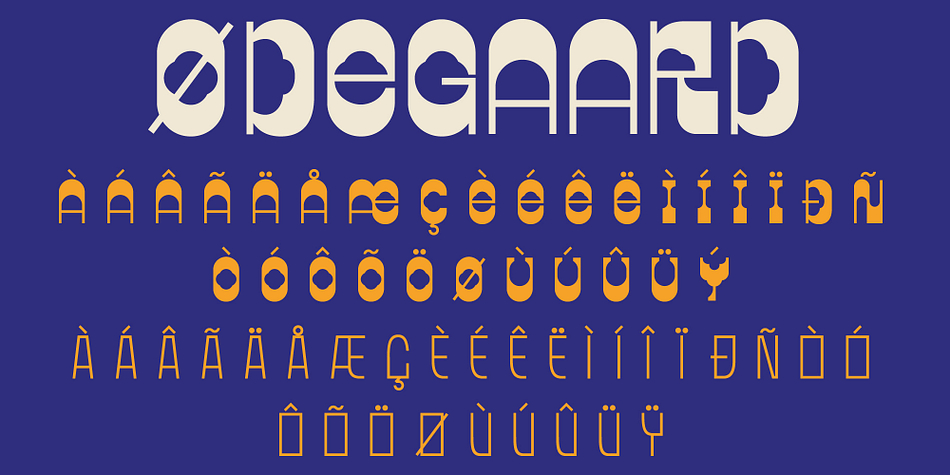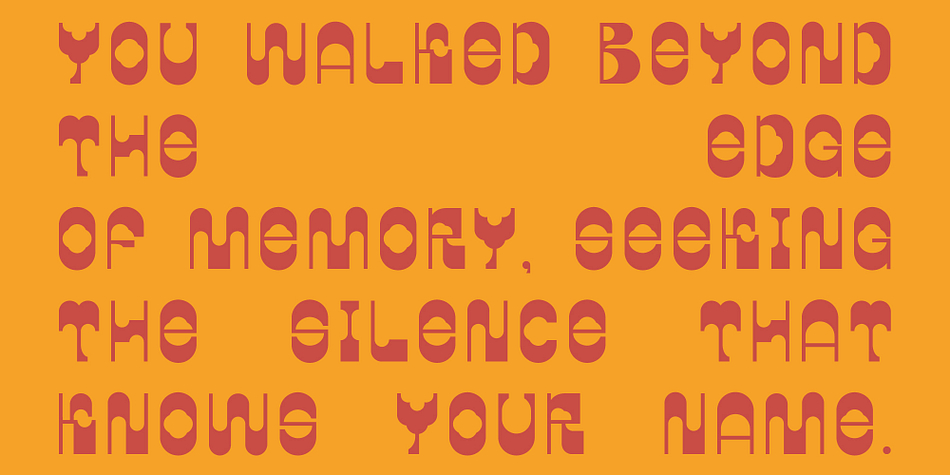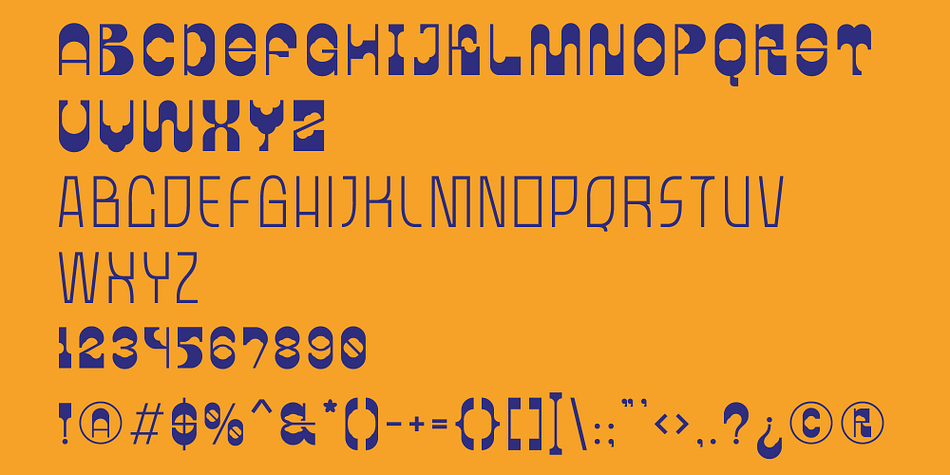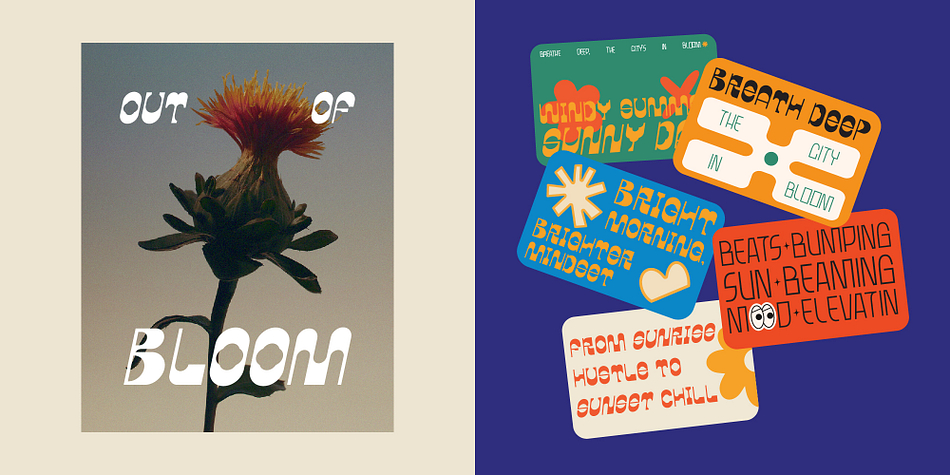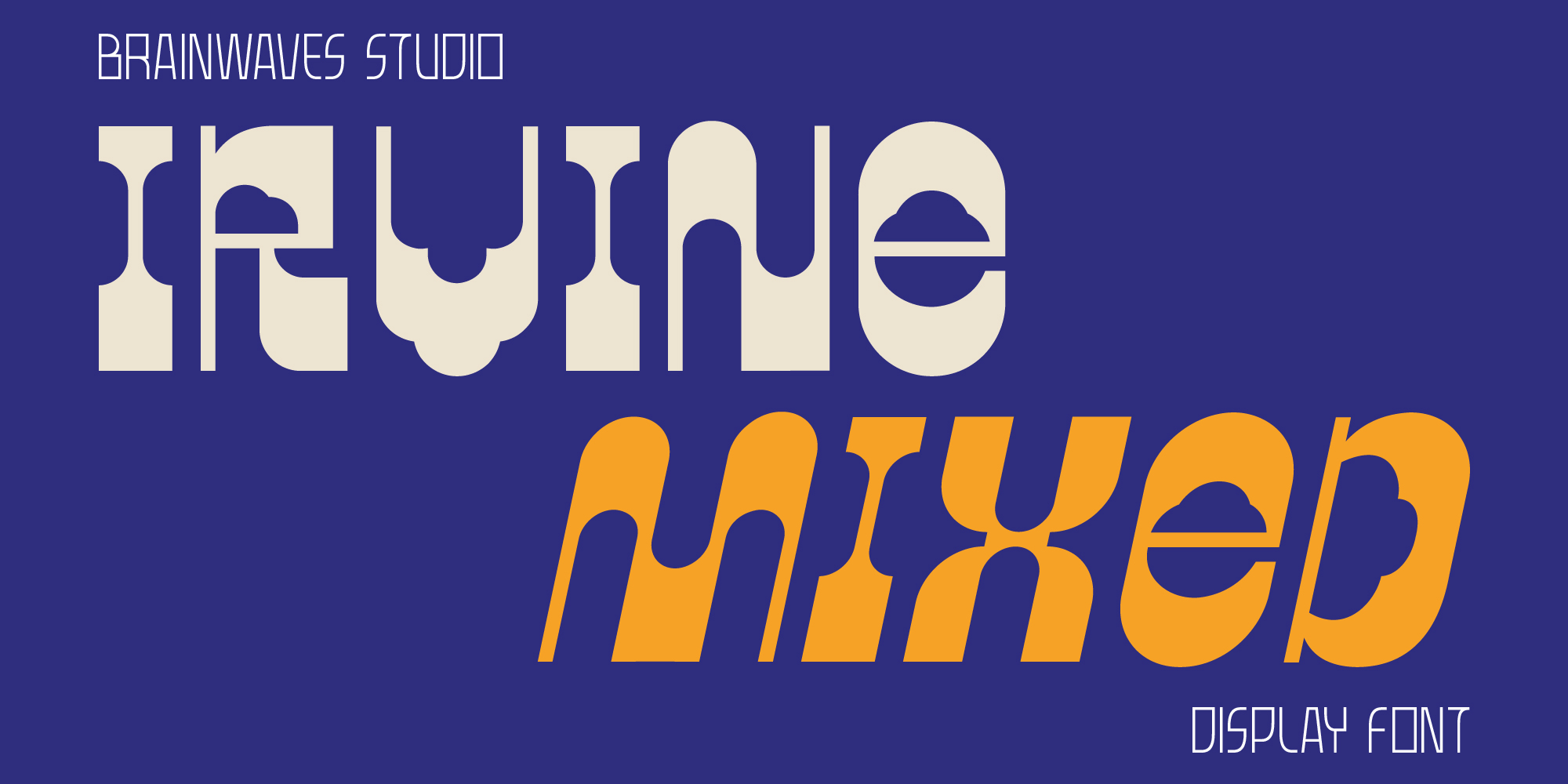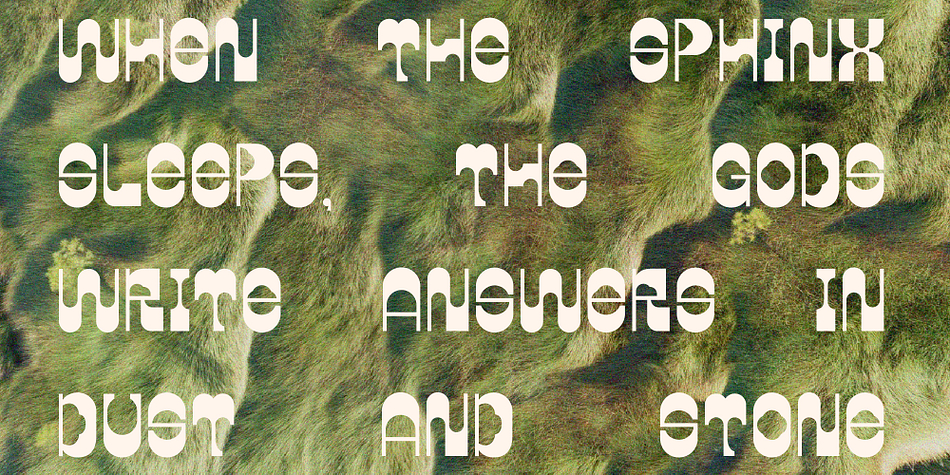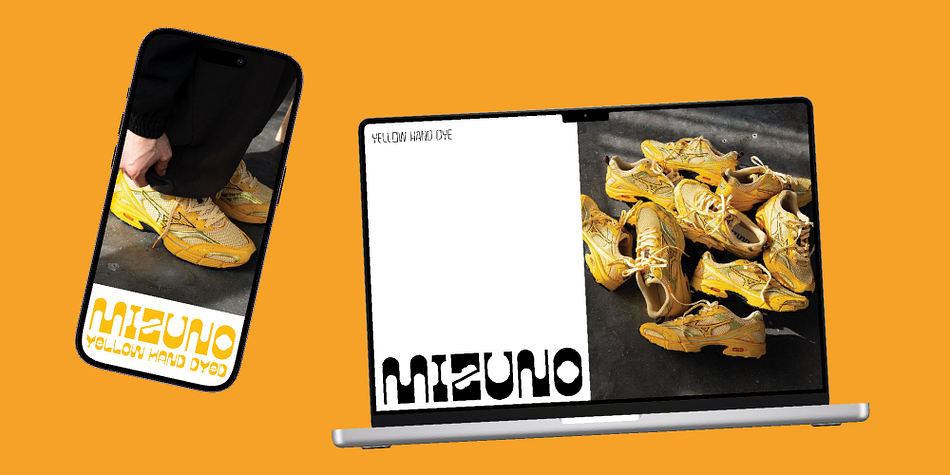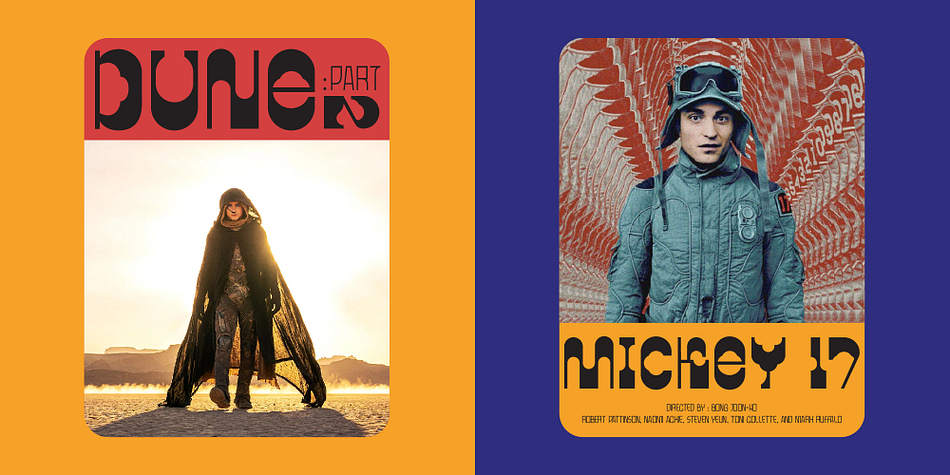
Irvine Mixed Font
Designed by Lucky Fitriadi, Irvine Mixed Font is a sans serif font family. This typeface has two styles and was published by Brainwaves Studio.
Irvine Mixed is a vibrant and expressive display font that merges the funky curves of retro lettering with the angular edge of sci-fi aesthetics. Each character is designed to feel like a surprise—some are sharp, others soft, but all dance together in rhythm. It’s a typeface that doesn’t follow the rules—because it makes its own.
From music flyers and sneaker drops to editorial covers and urban fashion campaigns, Irvine Mixed injects playful chaos into polished designs. Use it loud, use it bold—this font was made to be seen and remembered.